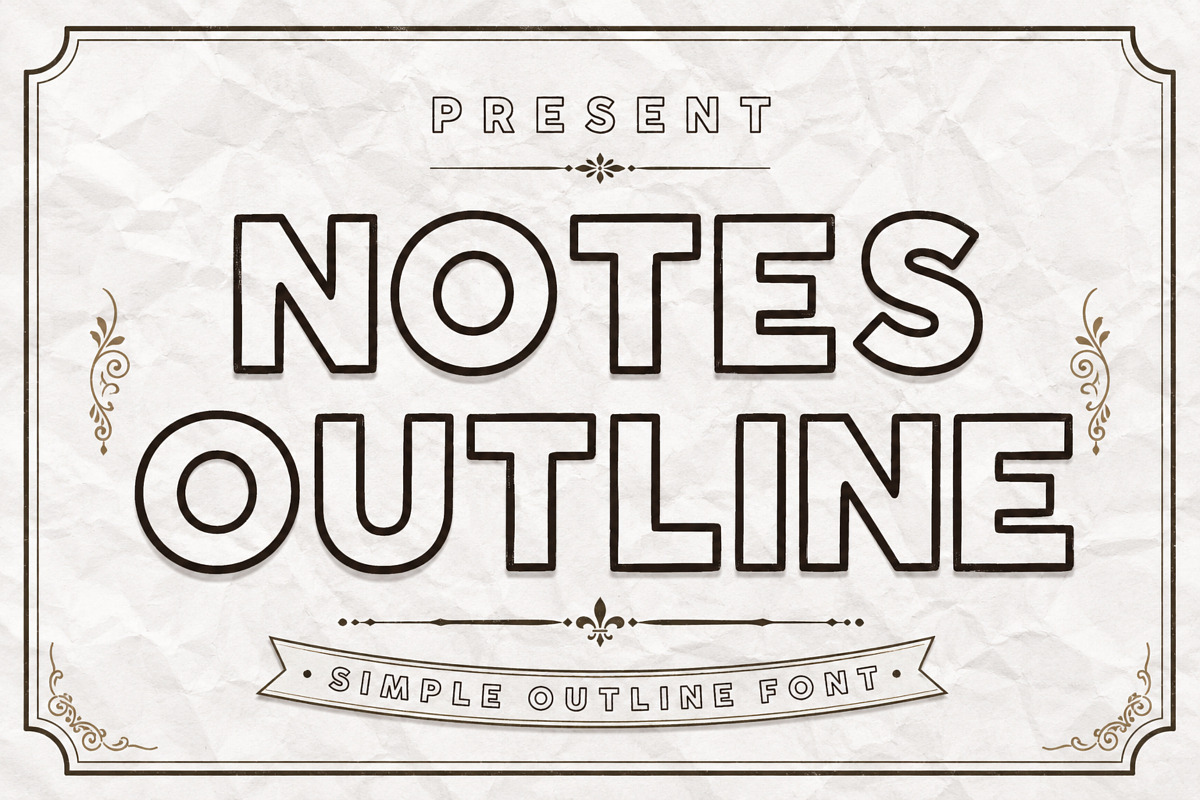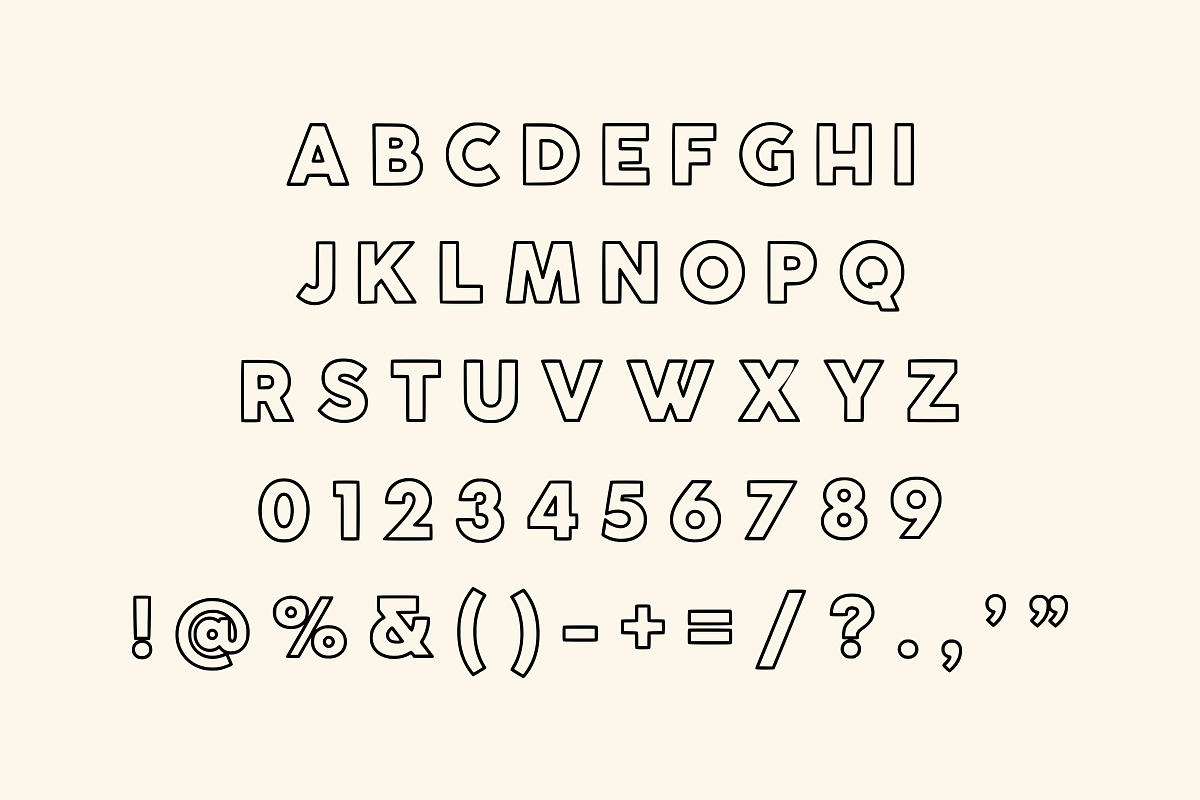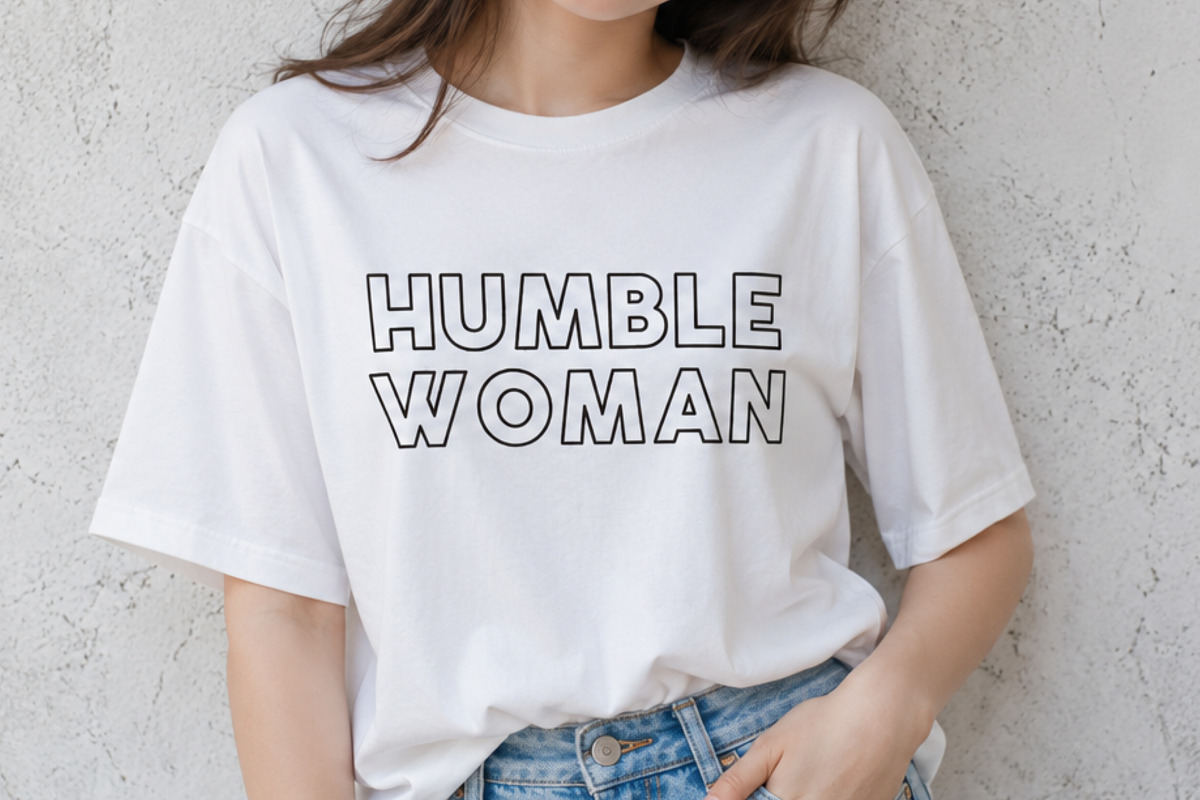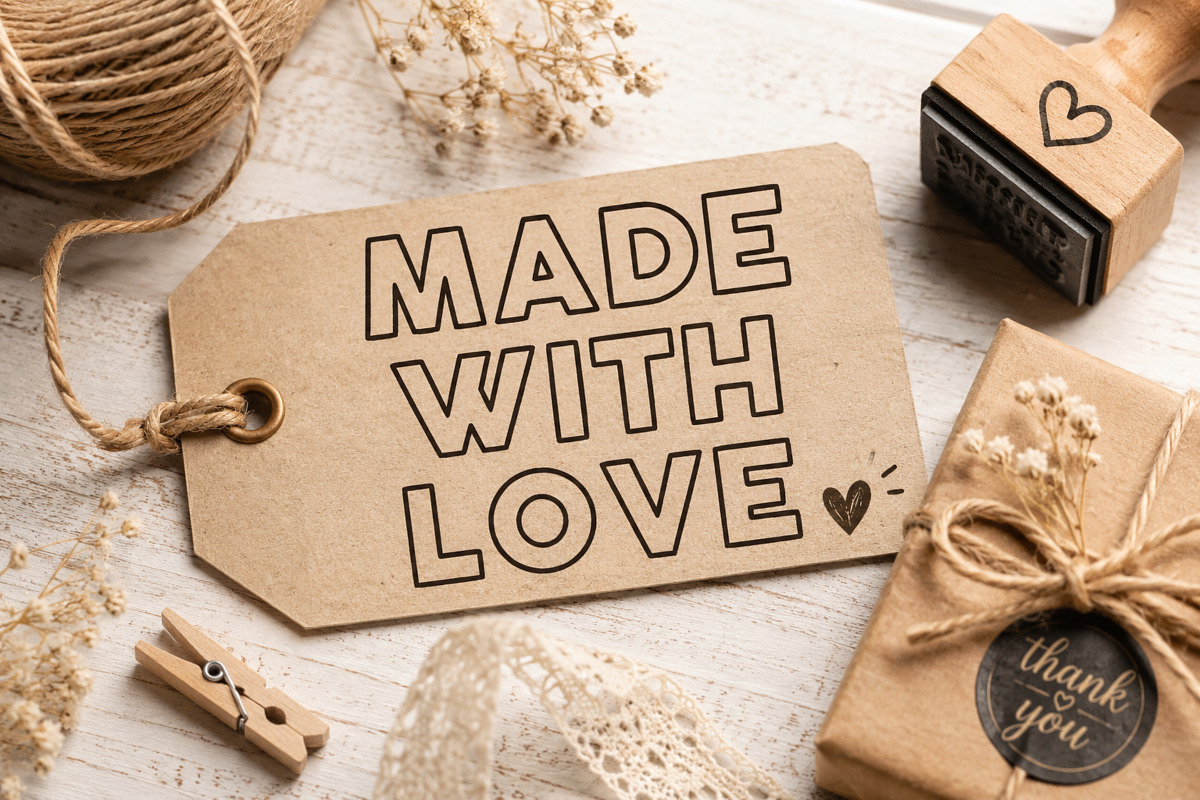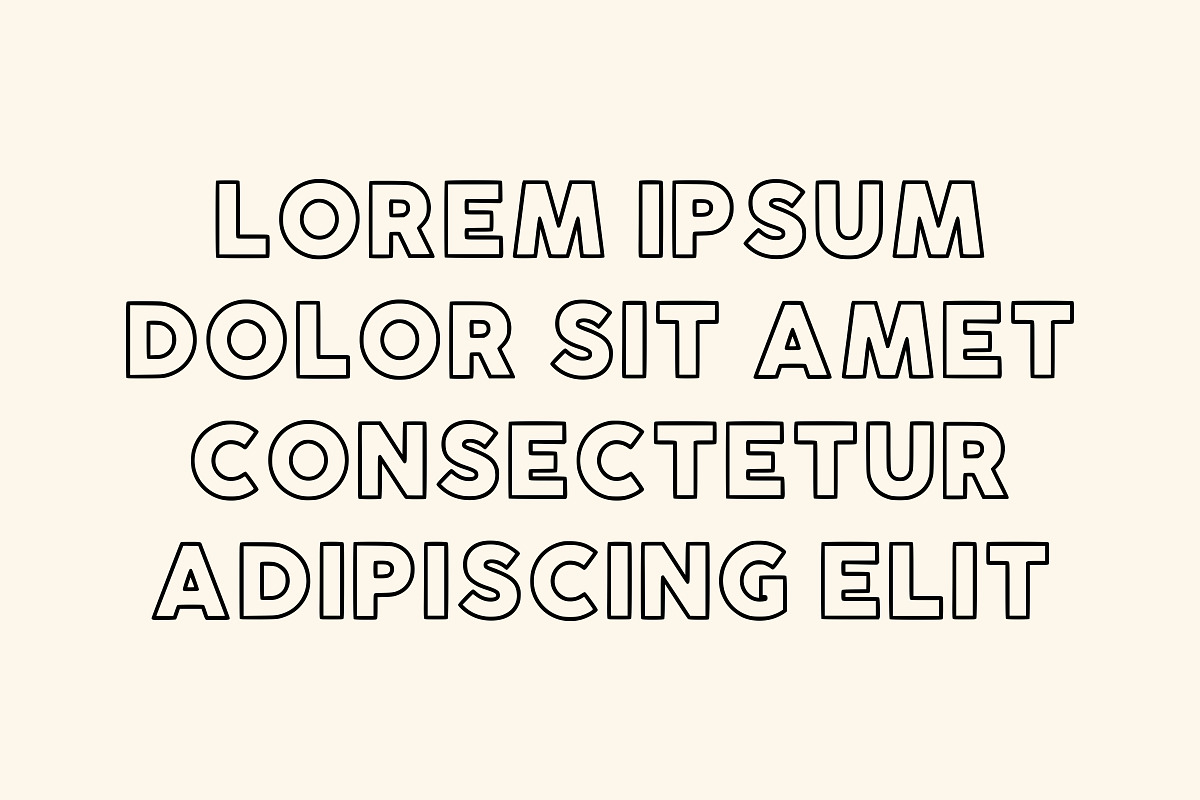
Notes Outline Font
HAPPY NOTES is a playful and modern outline font designed to bring a cheerful and friendly feel to your designs. With its smooth rounded edges and clean line style, this font perfectly blends simplicity and elegance with a trendy look.
Ideal for a wide range of creative projects such as kids products, branding, logos, packaging, posters, t-shirts, social media content, and more. The outline style makes it versatile for layering, coloring, or combining with other fonts.
Whether you’re creating fun merchandise or stylish minimal designs, HAPPY NOTES adds a fresh and modern touch effortlessly.